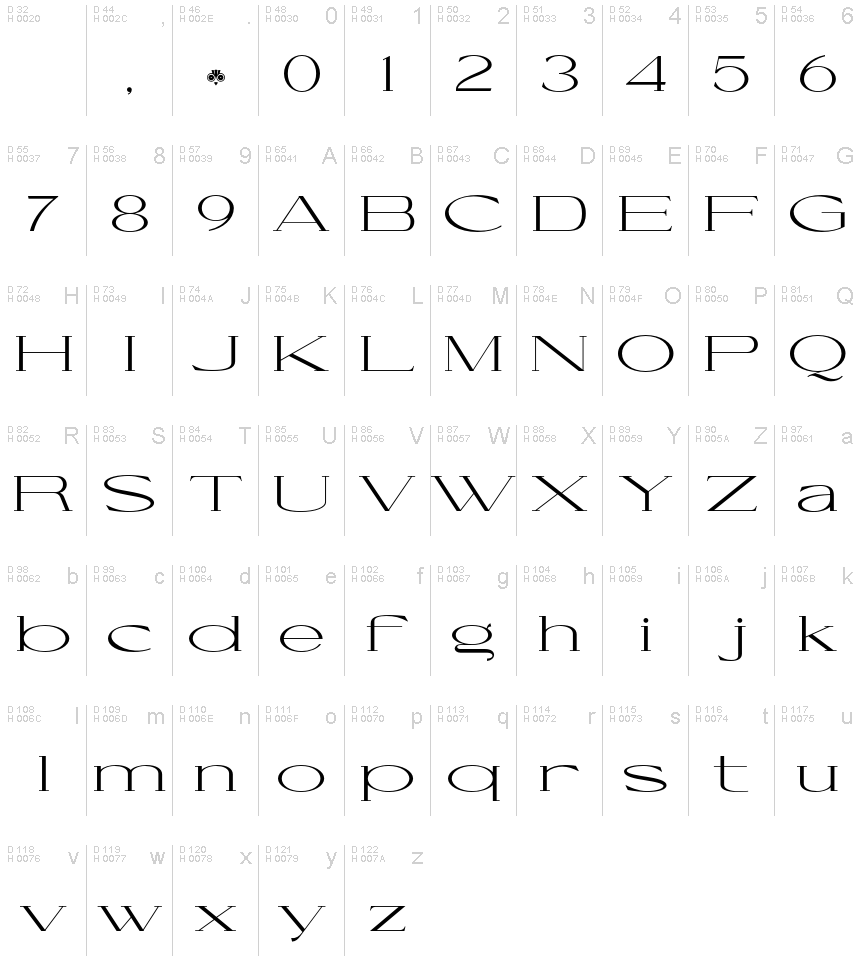
Cellofy Light ExtraExpanded font from the Cellofy family, crafted by Owlking Project, presents a striking blend of elegance and charm. This serif font captivates with its light weight and expanded width, creating an airy yet captivating presence. Its refined serifs add a touch of sophistication, making it ideal for designs that demand attention without overwhelming the viewer.
Perfect for headlines, editorial layouts, and creative projects seeking a modern yet classic feel, Cellofy Light ExtraExpanded brings versatility to various applications. The font is free for personal use, inviting designers to experiment with its unique character.